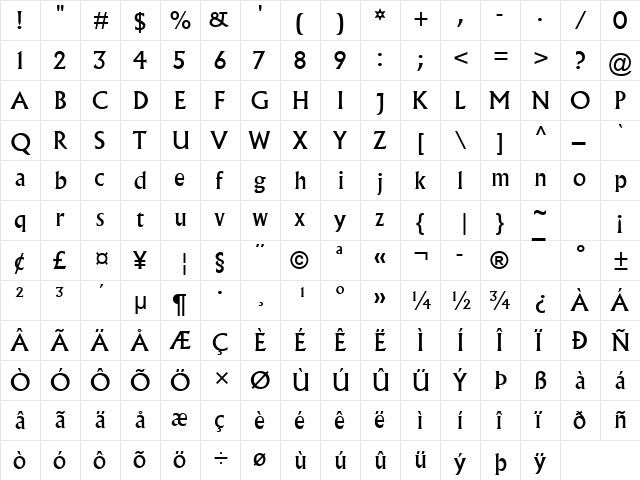
Albertus MT Regular
Design Context for Albertus MT Typeface
Albertus MT offers clean, dependable letterforms without strong stylistic allegiance, making it a practical choice for designers who need flexibility.